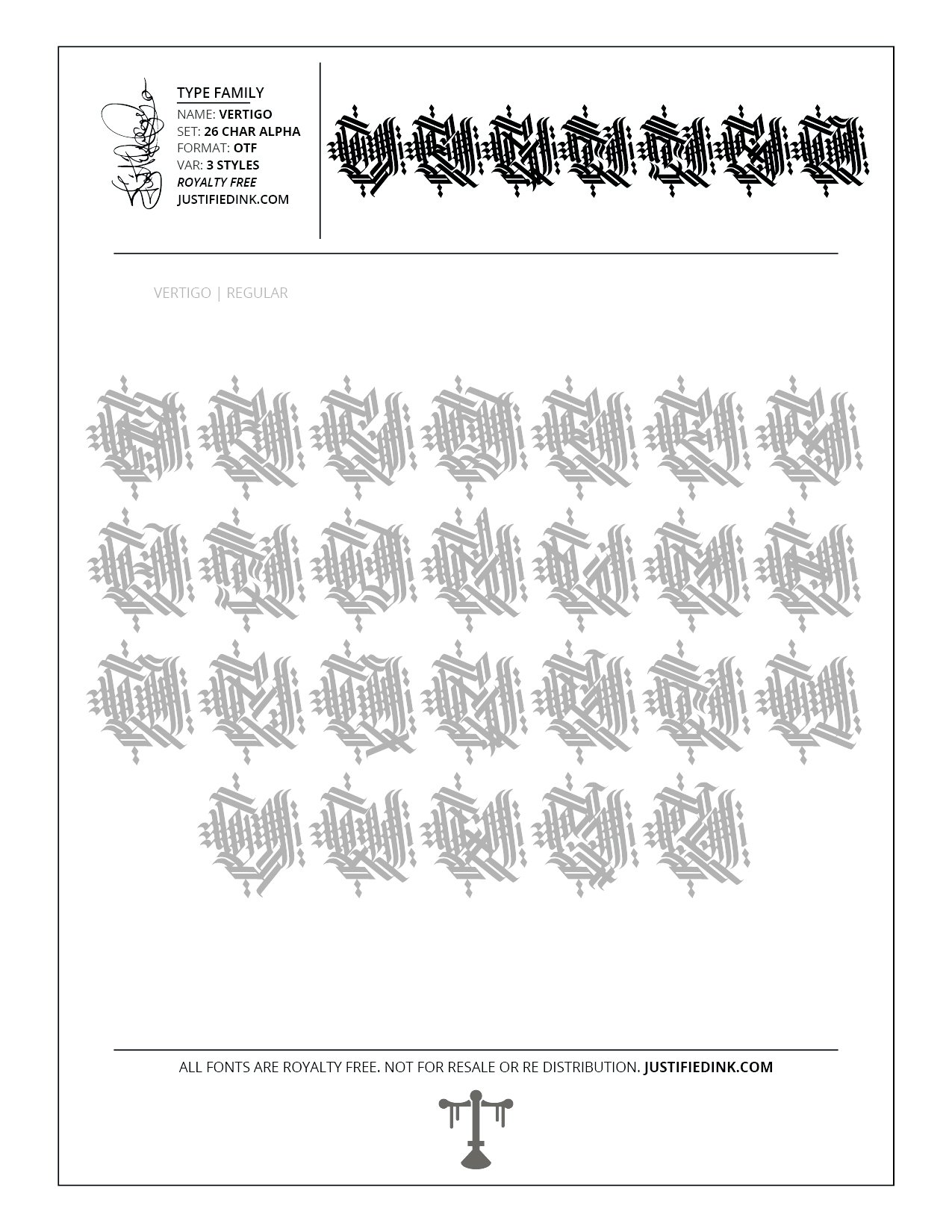
Vertigo (3 styles) - Custom Font by Justified Ink
Vertigo is the stability and the uncertainty composed through maximalist blackletter. The variations are spun on the central point for use in future-style design.
This font is part of the collection by Justified Ink, called Blackletter II. After 15+ years creating, I began to focus on building personal libraries of my work. The Blackletter II Collection was created through writing page after page, and countless hours over a 2 year span of daily practice. Each font from this collection has been hand drawn, manually vectored, and custom set as a type-able font. It comes in a full set of 26 char alpha. Each font family has variations in styles and/or non-alpha chars.